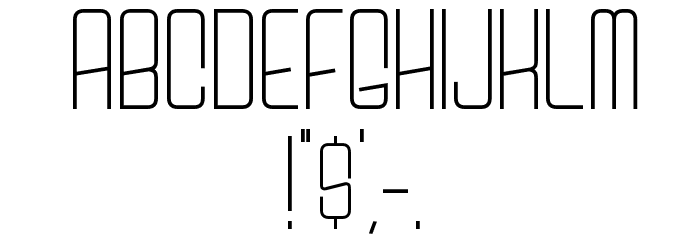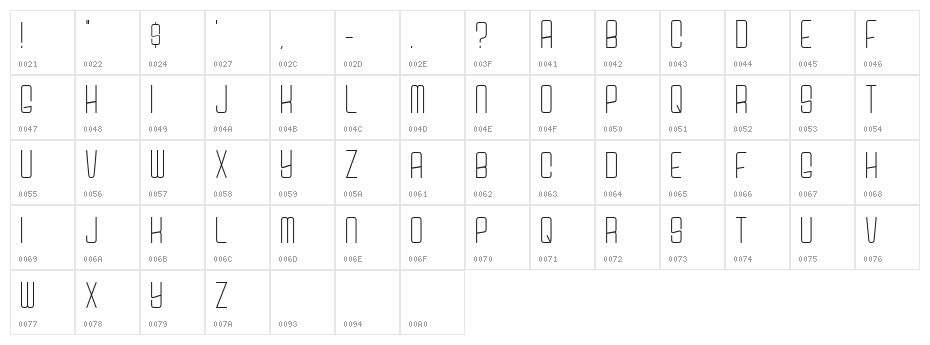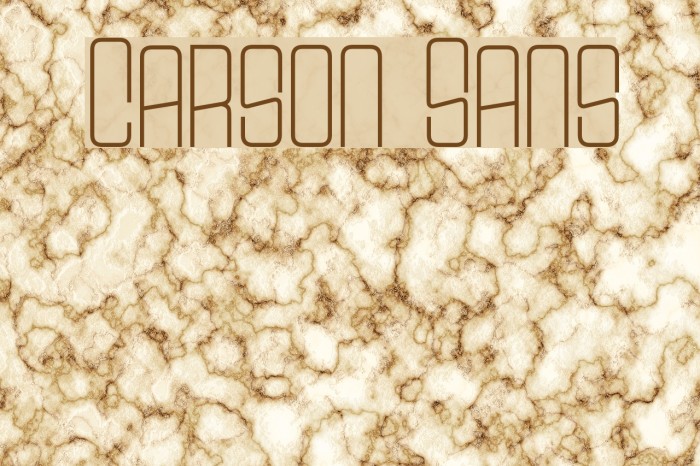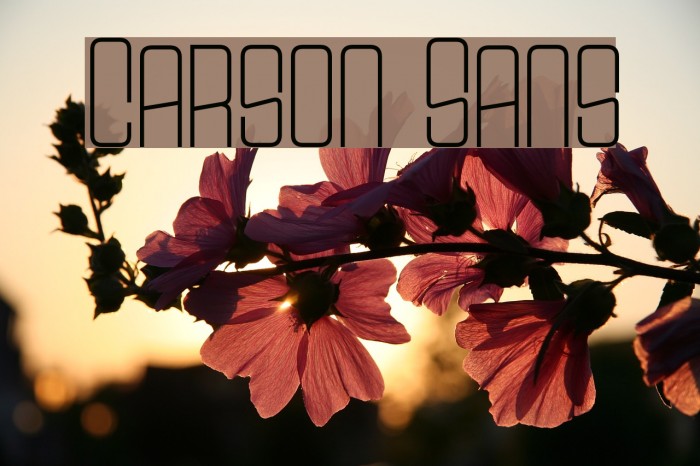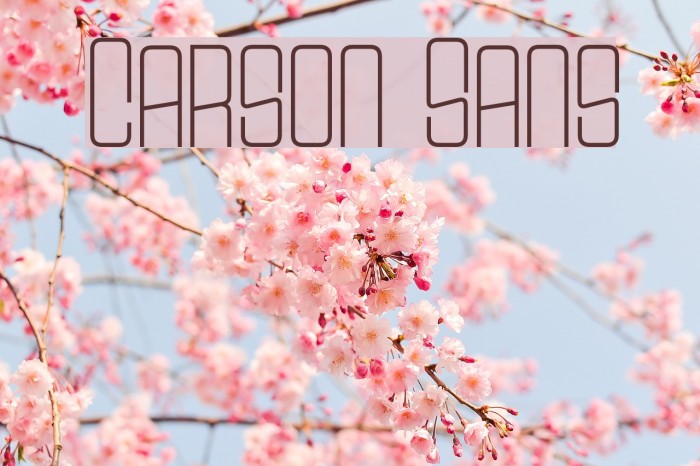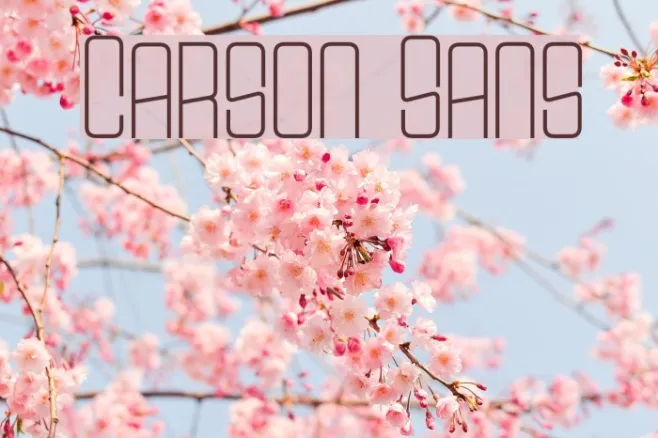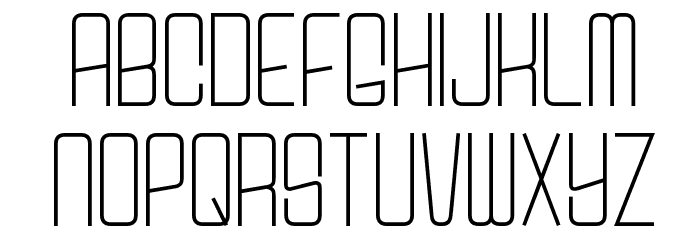
Carson Sans Font
Carson Sans Description
This font features a modern, geometric sans-serif style with a distinctively tall and narrow structure. The characters are constructed with clean, straight lines and sharp angles, giving it a sleek and contemporary appearance. The uppercase letters are particularly elongated, enhancing the font's vertical emphasis. The spacing between characters is tight, contributing to its compact and efficient look. The font's minimalistic design makes it versatile for various applications, maintaining legibility while offering a unique aesthetic.
| Proposed Projects | Ideal for branding, editorial design, posters, and digital interfaces where a modern and clean look is desired. |